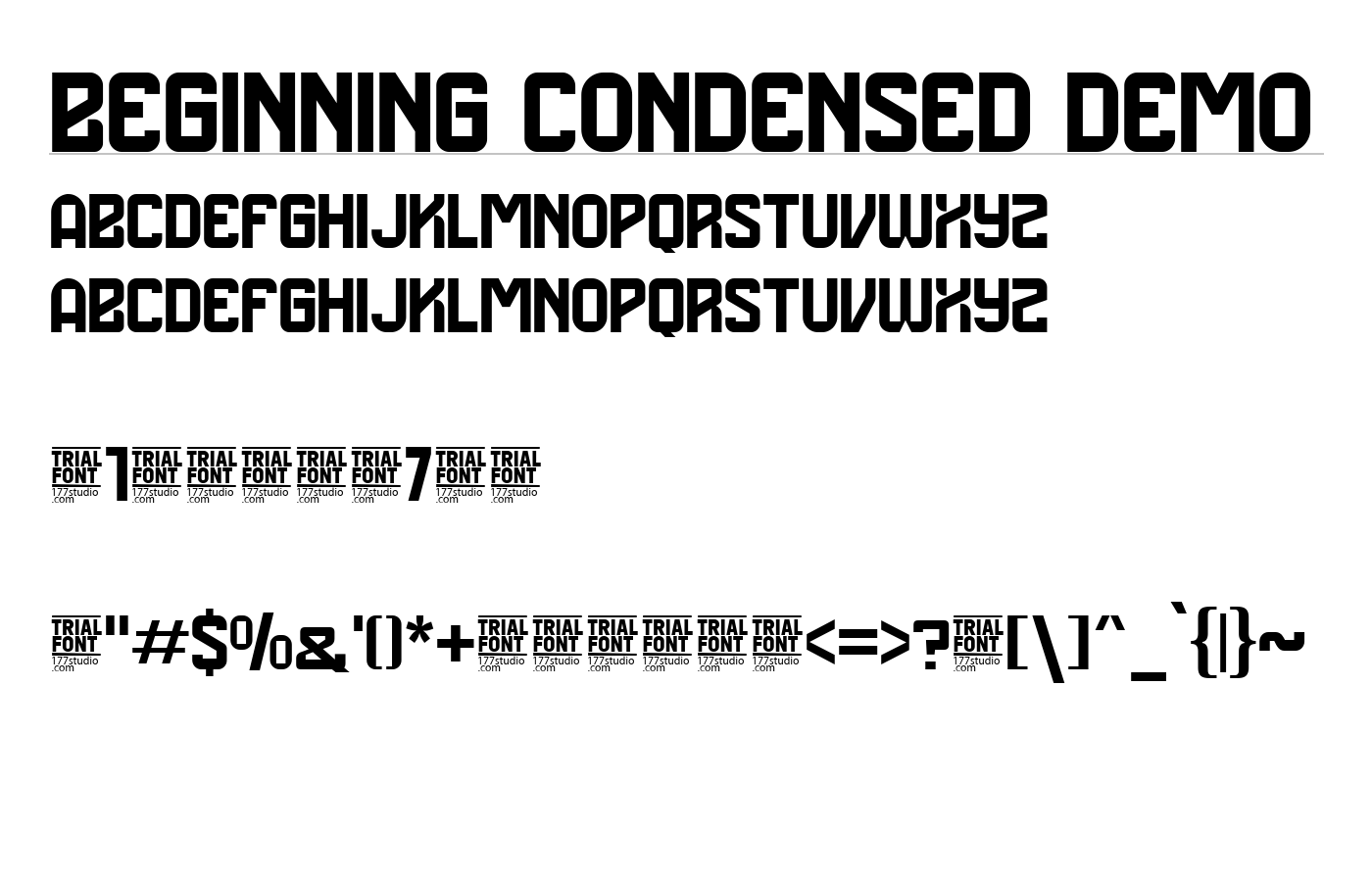
Beginning Condensed Demo is a bold, condensed sans serif font with a strong, modern presence and geometric strokes. Its sharp, blocky letterforms and uniform weight make it ideal for impactful headlines, logos, and branding where space is limited but visibility is key. This typeface conveys a contemporary, urban vibe perfect for dynamic and assertive design projects.
Beginning Condensed Demo Font
About Beginning Condensed Demo Font
| Font family | Beginning Condensed Demo Font |
| Designer | 177Studio.com |
| Font subfamily | Condensed |